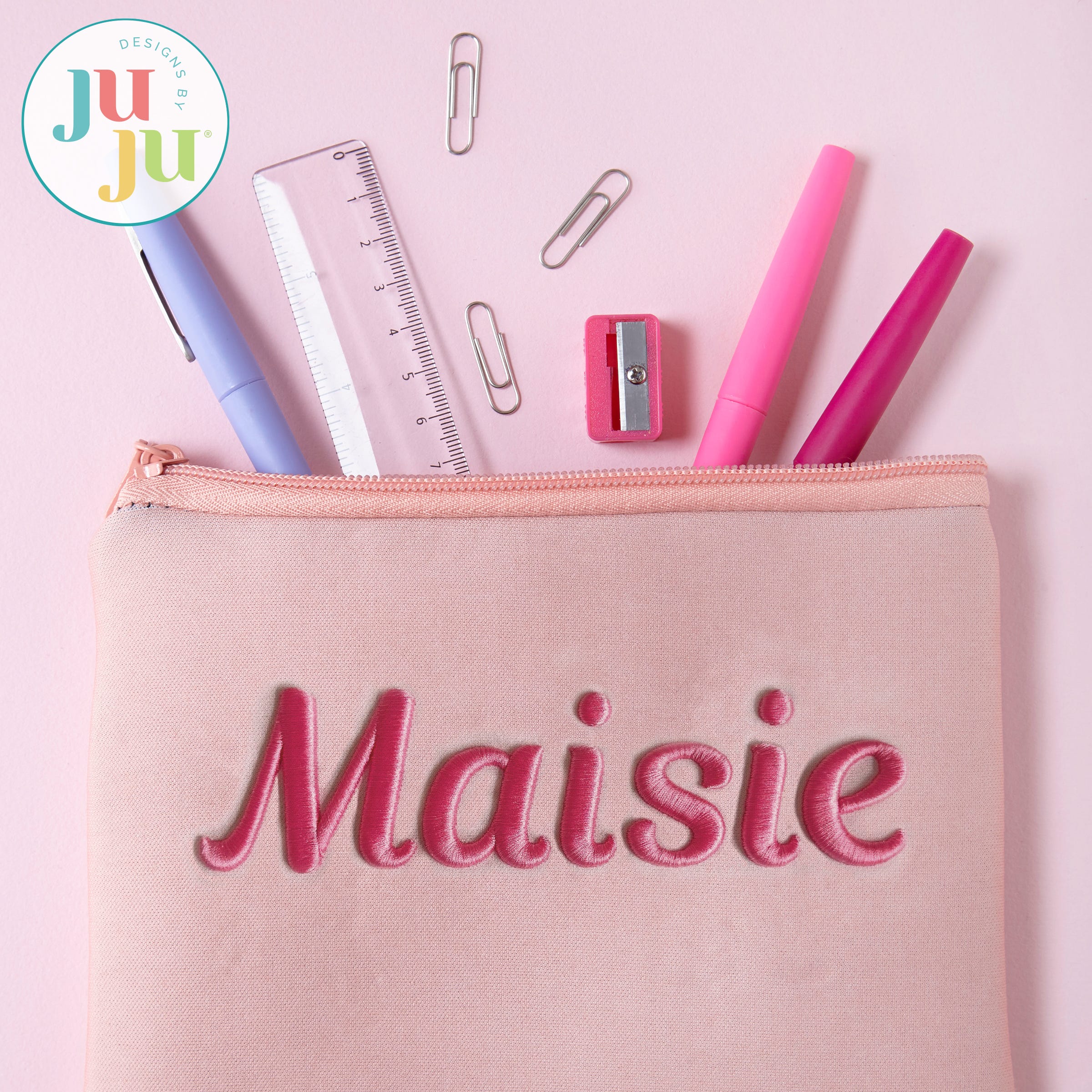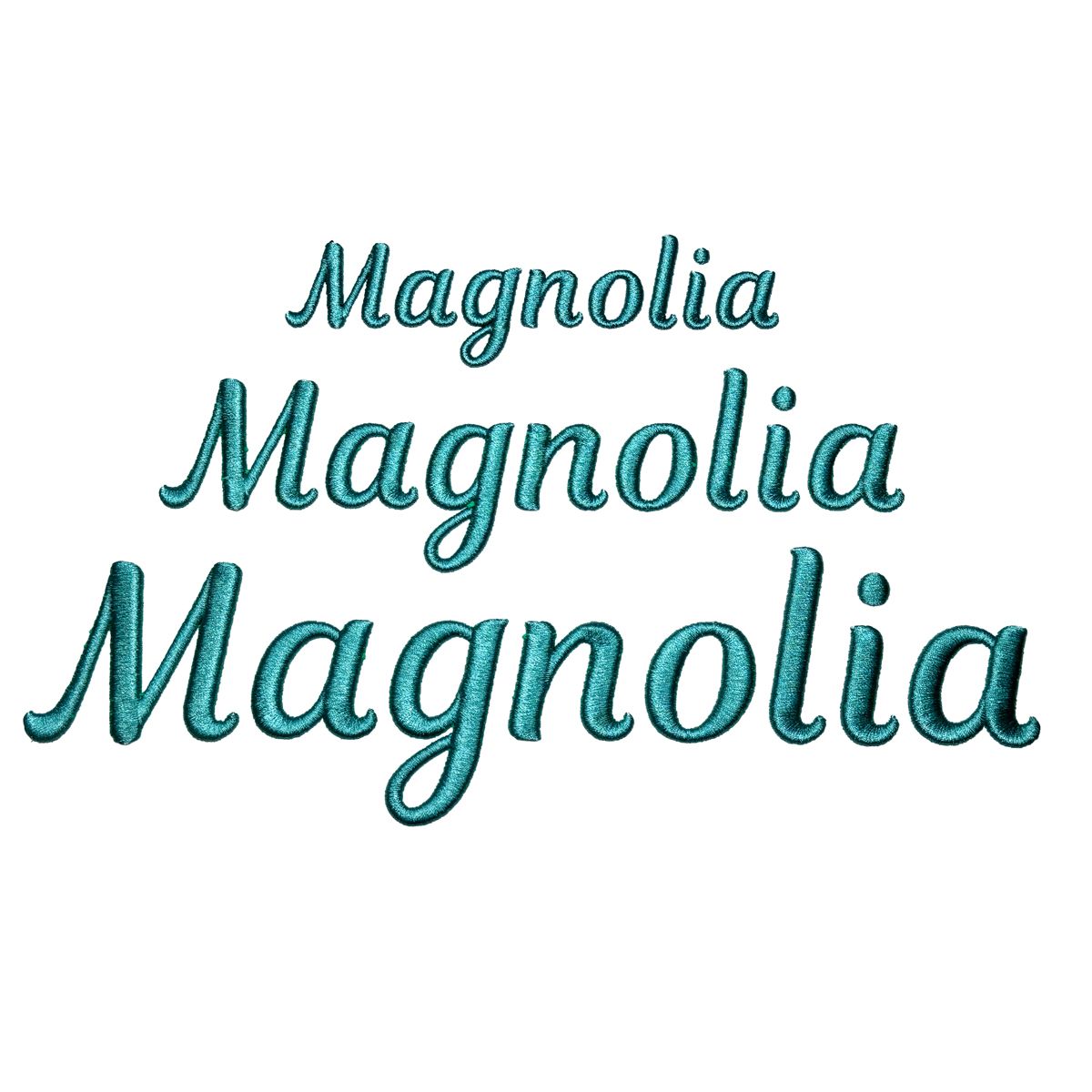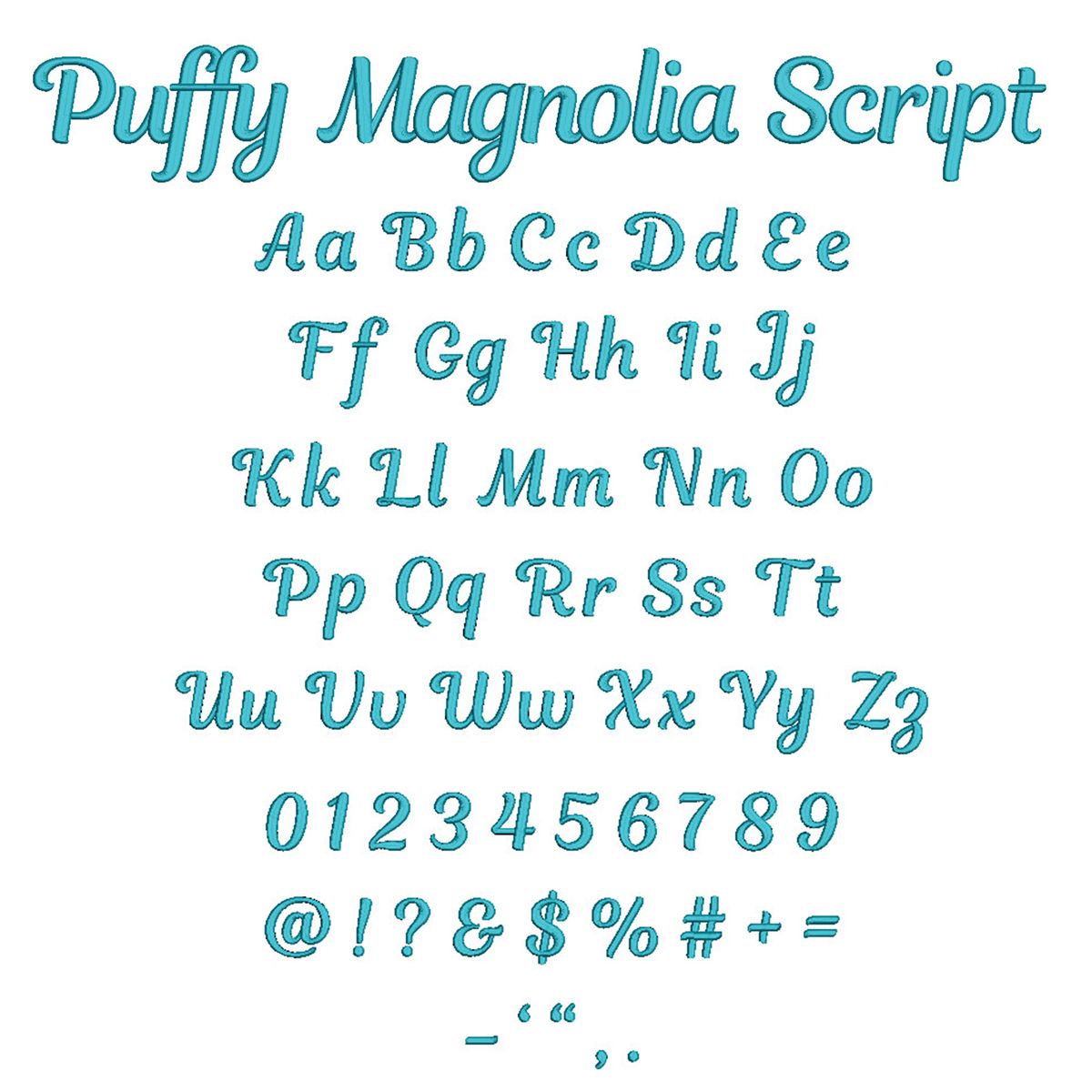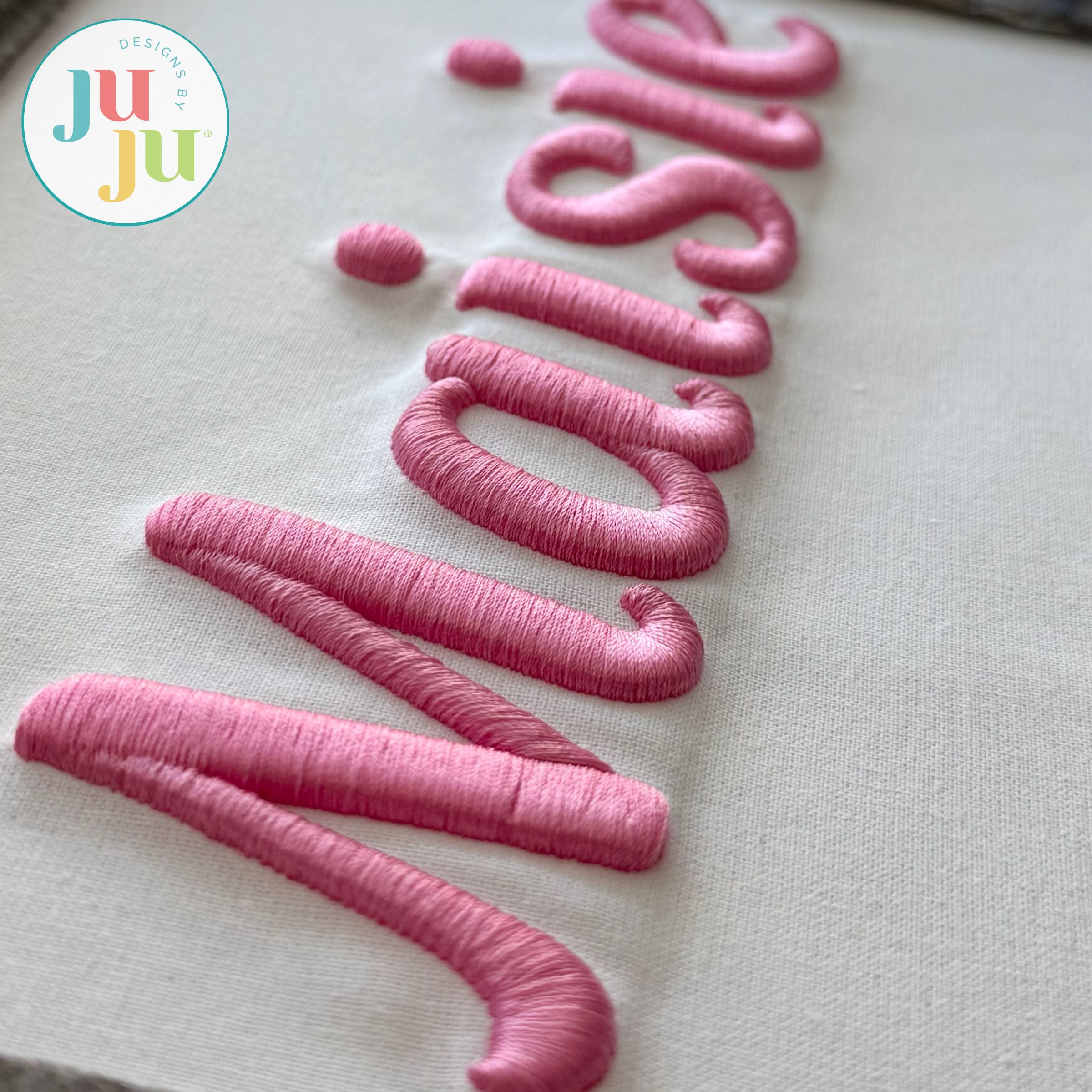
Puffy Magnolia Script Satin Stitch Embroidery Font
Bring your embroidery projects to life with this specialized puffy foam embroidery font, designed to create stunning 3D effects! Perfect for hats, jackets, bags, and other items where you want your designs to stand out with bold, raised lettering. We recommend using puffy foam designed for use with embroidery machines. Detailed instructions are included in the download so you can confidently add depth, style, and texture to your projects.
3 sizes included: 1-inch, 1.5-inch, and 2-inch